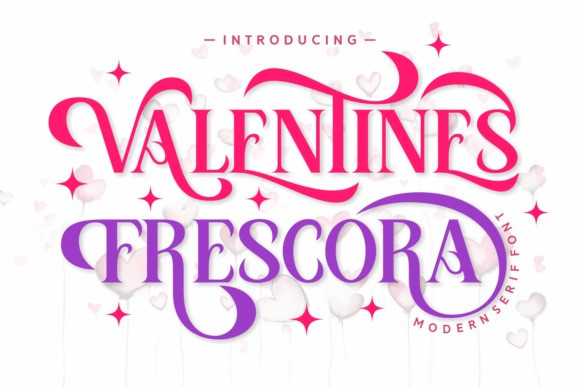
Valentine Frescora Font
Valentine Frescora Font a unique take on Serif Fonts steeped with profound romance and love. Perfectly accentuating the sweetness of Valentine’s Day and capturing the purity of countless love-struck hearts. Embellished with multilingual and accented features, it brims with an Eastern European flair that adds a distinct freshness and authenticity to its character. Enjoy its smooth, unique, and clean lines ideal for various applications. Whether it’s stylishly adorning magazines, book covers, and greeting cards or lending a unique elegance to t-shirts, “Valentine Frescora” offers versatile use for various design needs. Immerse yourself in the allure of this font, as it breathes life into brand designs, captivating quotes, and elegant apparel pieces. It also provides an unmissable charm to product packaging, invitations, labels, and posters, while ensuring your logotypes stand apart. Highlight your personal touch with the additional swashes font feature, making every piece you create wonderfully heartfelt and genuinely yours. Discover the charm of “Valentine Frescora”, an irreplaceable delight in the world of fonts.